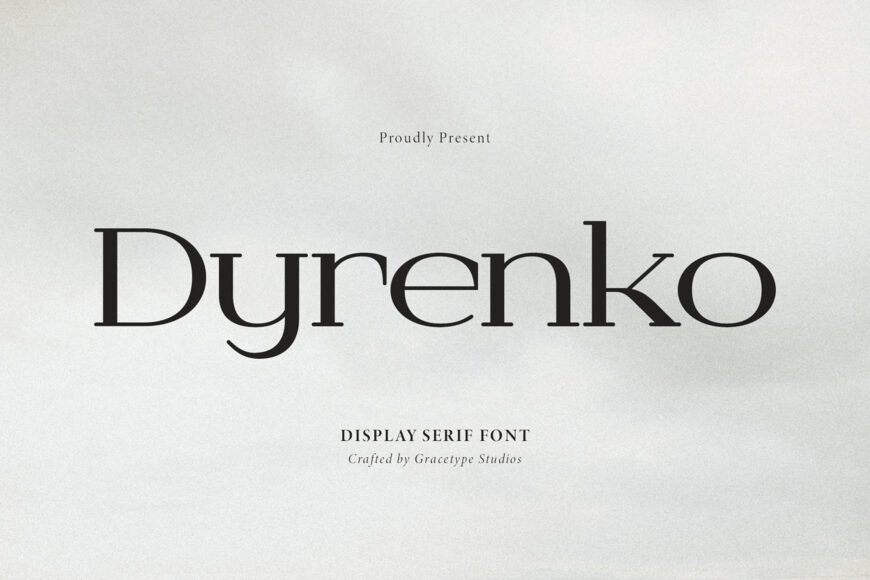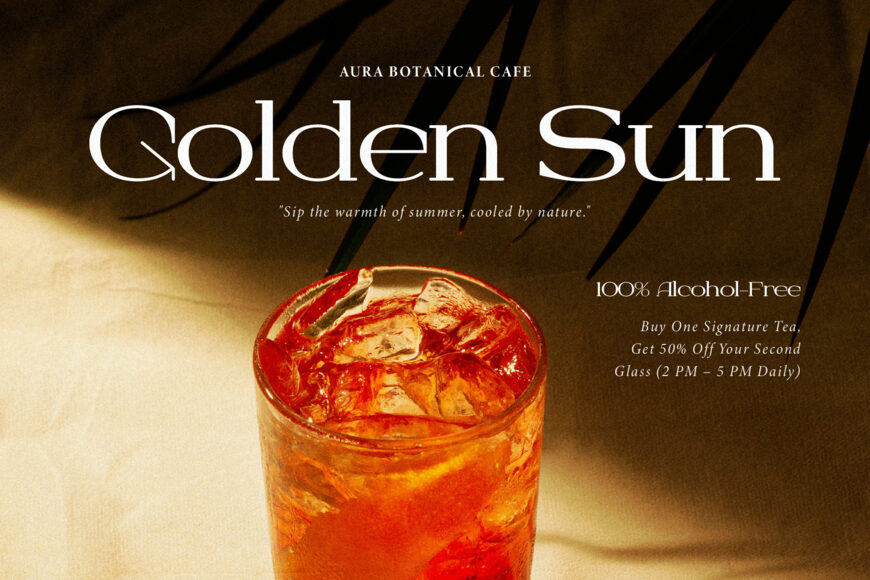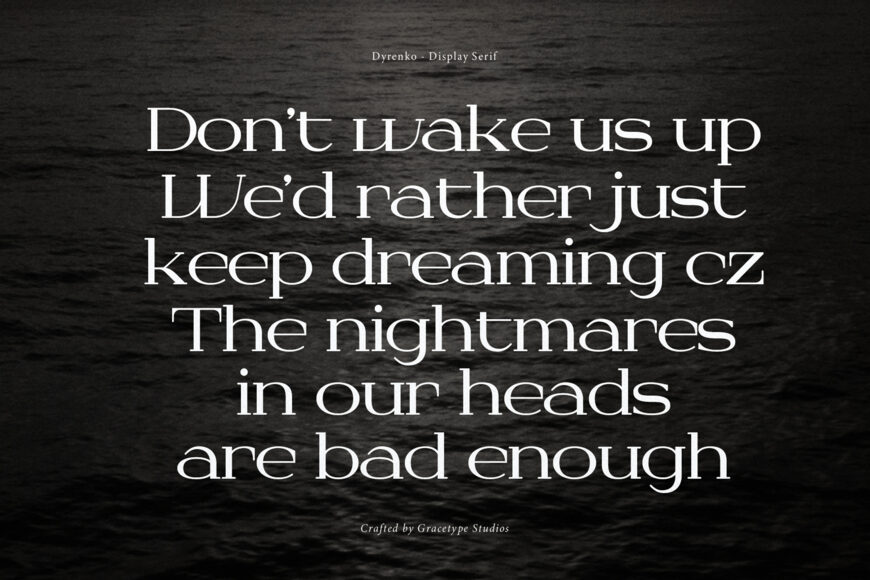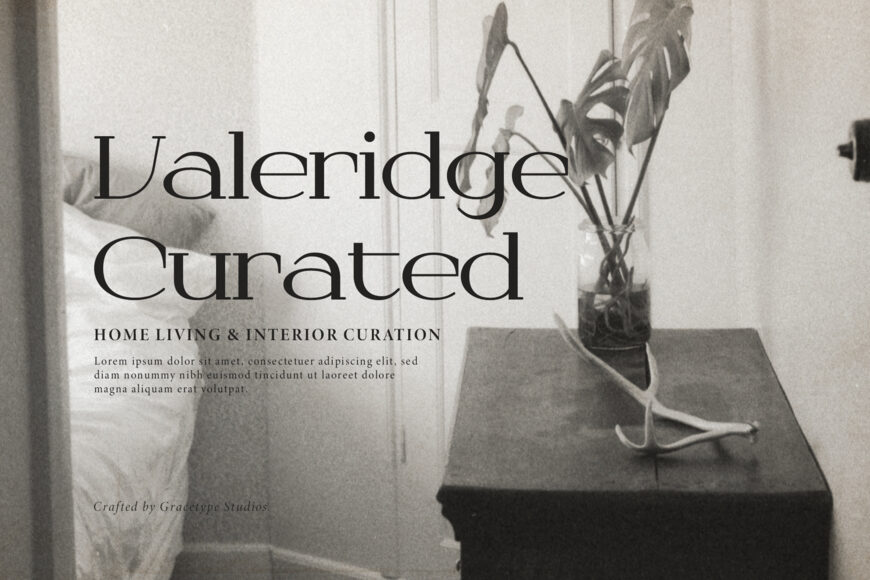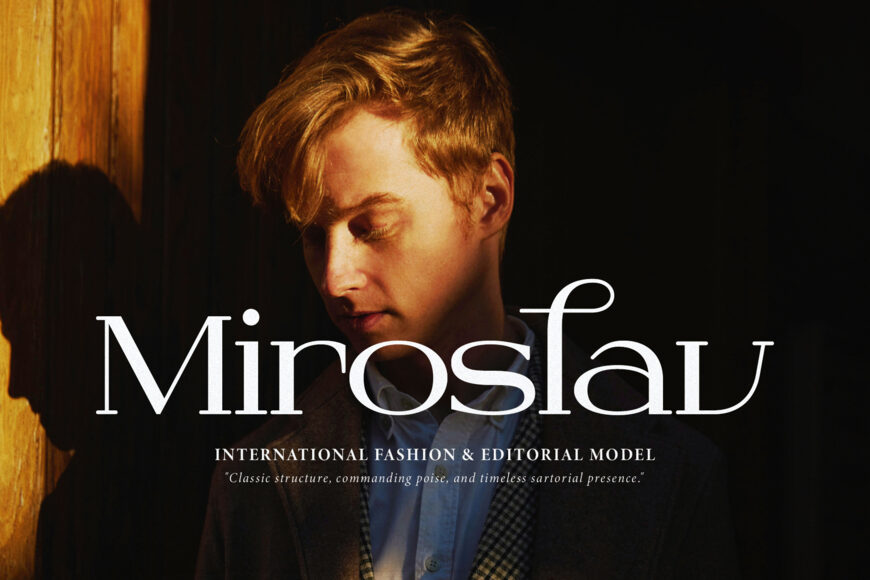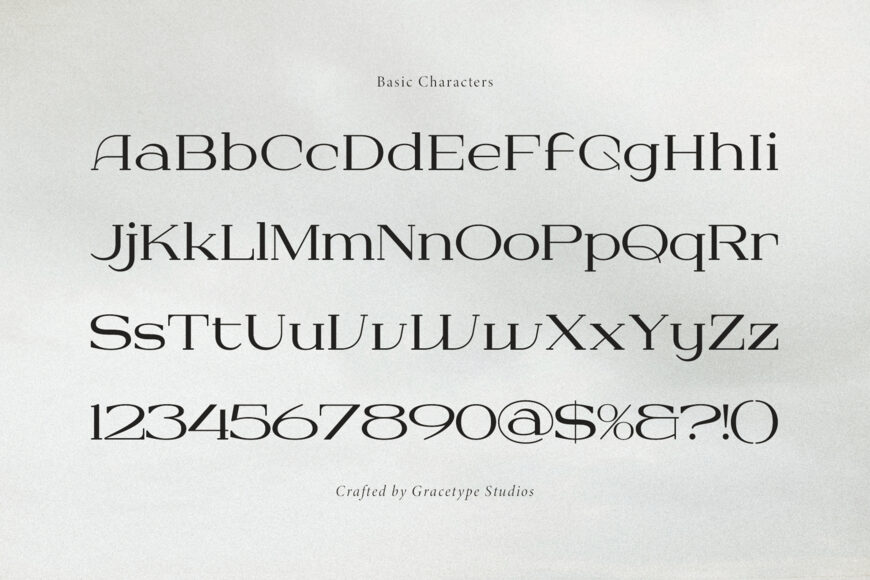
Bring timeless editorial polish, couture-inspired elegance, and an artistic touch to your designs with Dyrenko. This display serif blends classic proportions with contemporary details, including sweeping descenders, refined bracketed serifs, and distinctive connected leg terminals.
Its graceful, balanced form adds effortless luxury and a prestigious editorial feel to every layout. Dyrenko is perfect for fashion magazine headlines, boutique logos, premium packaging, beauty identities, editorial projects, wedding stationery, and sophisticated social media designs.